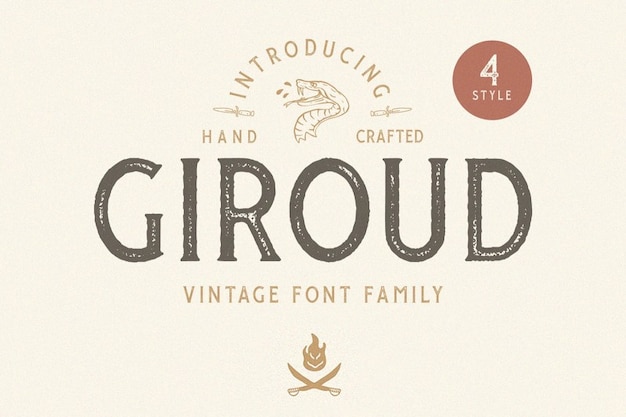
Giroud Vintage Font
It is like a blast from the past, with a touch of handcrafted charm. It captures the essence of yesteryears with its vintage and retro vibes, as if plucked from an old signboard. Each letter is carefully brushed, giving it a nostalgic, artisanal quality. This font is your time machine to a bygone era, perfect for projects where you want to infuse that vintage, handmade feel into your design. Whether it's posters, labels, or packaging, "Giroud Vintage" adds a touch of classic authenticity that never goes out of style.